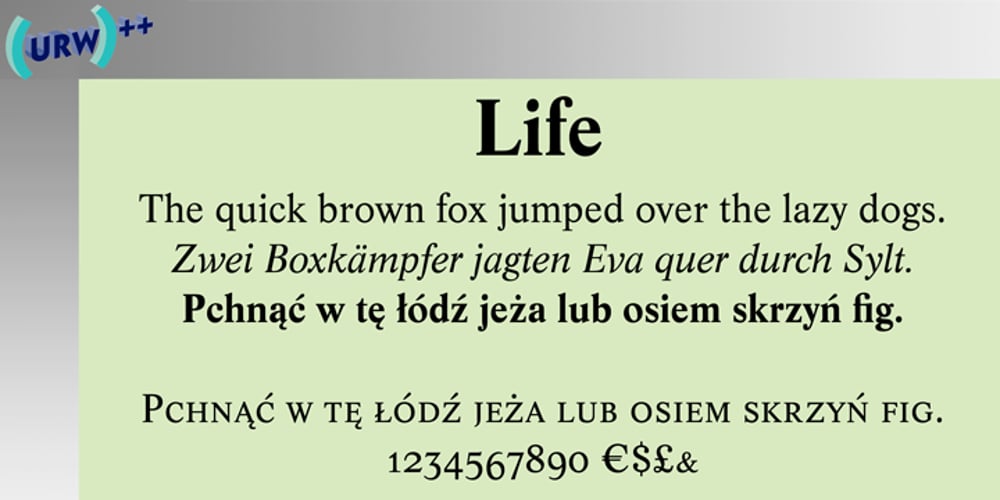
Life
Life font
Life Font Family was designed by Francesco Simoncini, W. Bilz and published by URW Type Foundry. Life contains 5 styles and family package options. Life is an elegant roman face, designed by W. Bilz and developed by Francesco Simoncini at Ludwig & Mayer in 1964. It is a contemporary design based on the Transitional designs of the eighteenth century. The Life font can be used for almost any kind of copy. Life is especially suitable for newspapers, both in editorial and advertising due to its high degree of legibility.